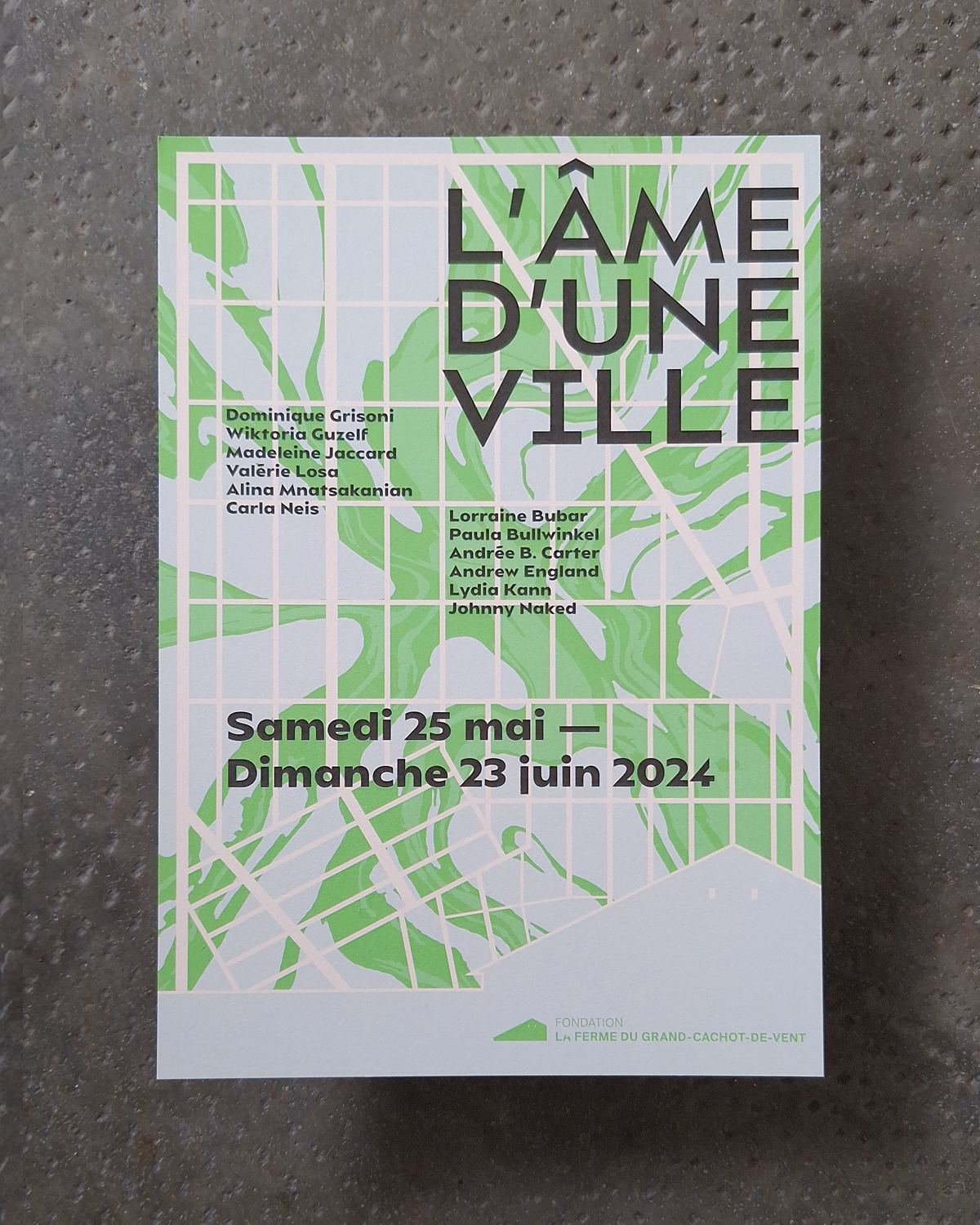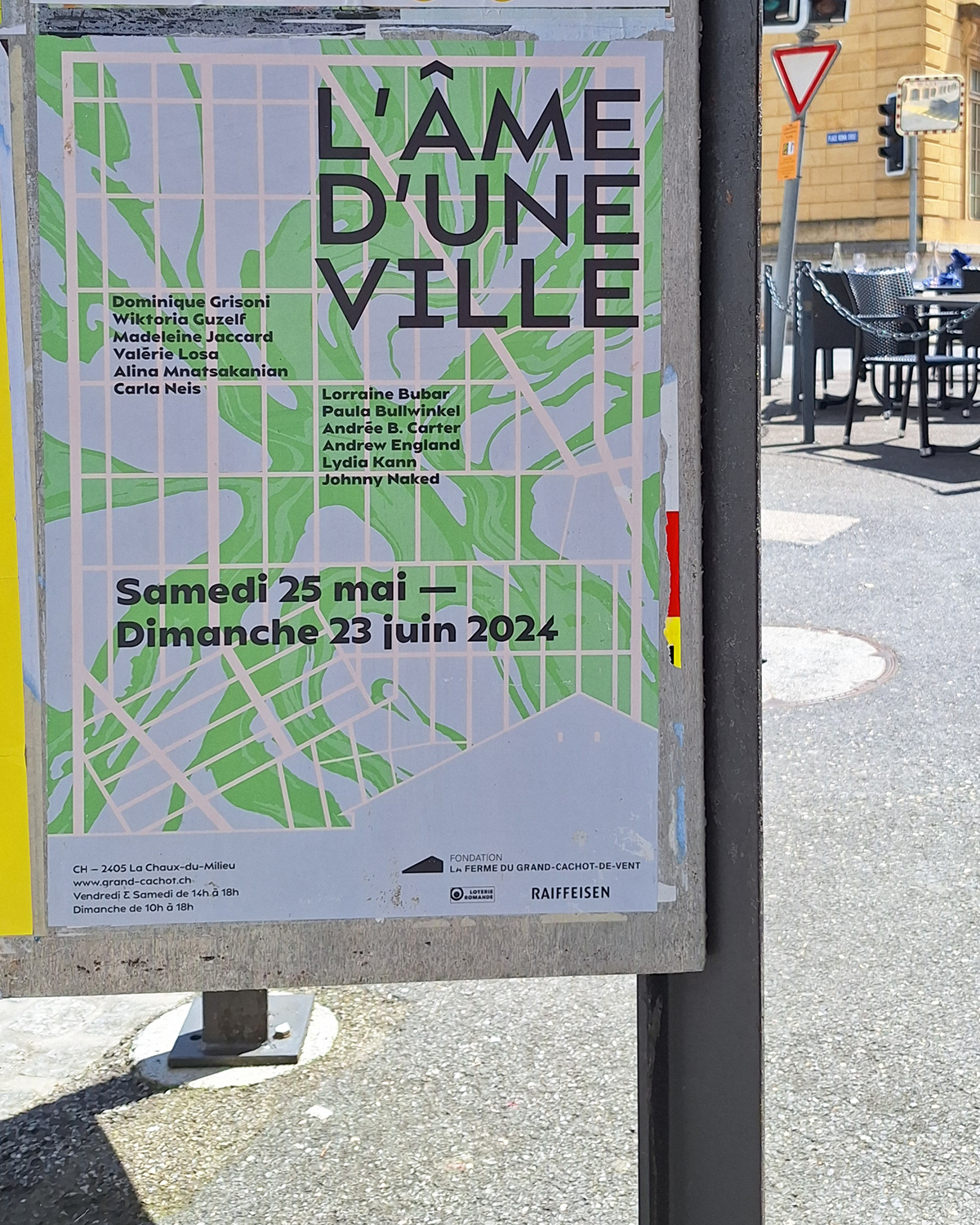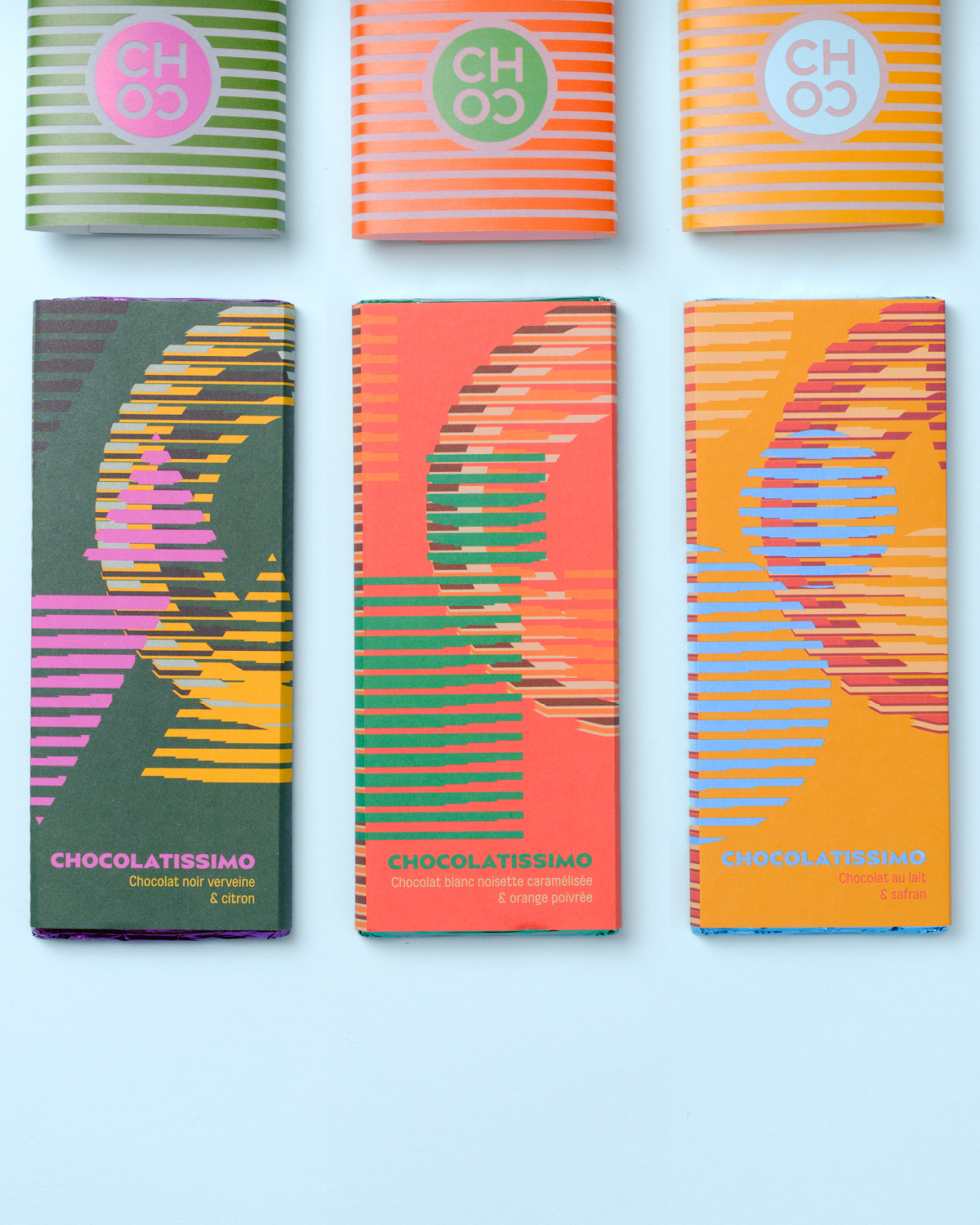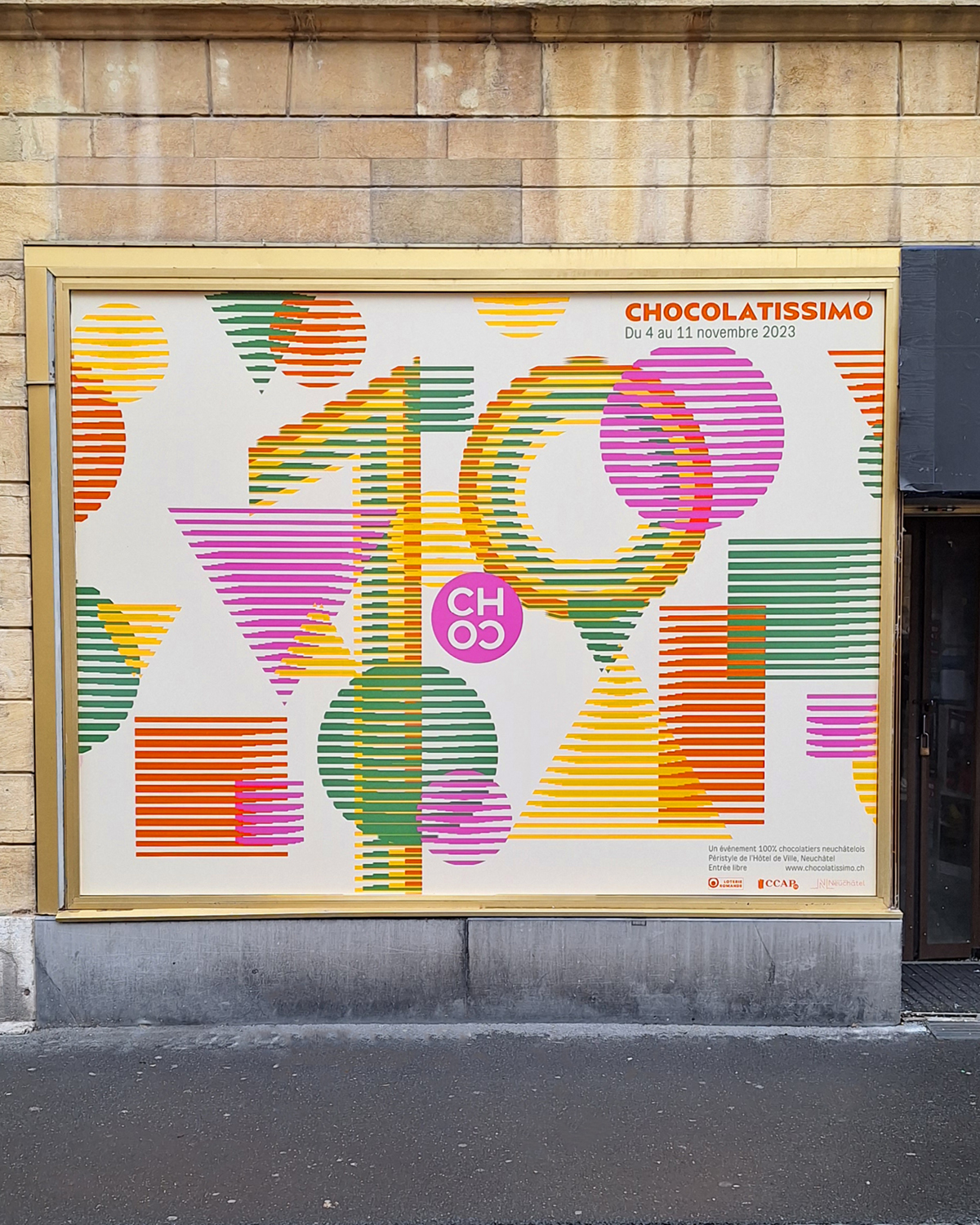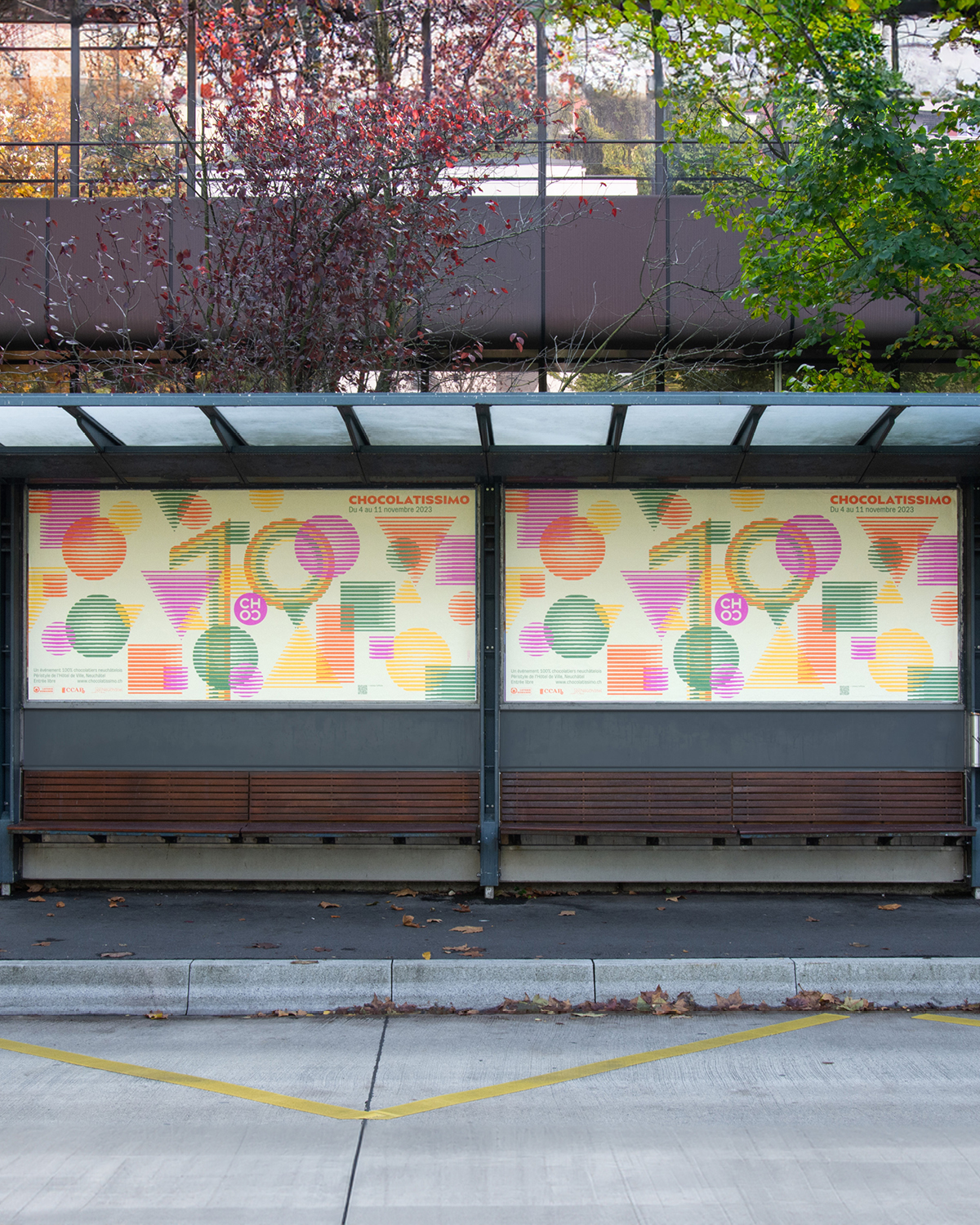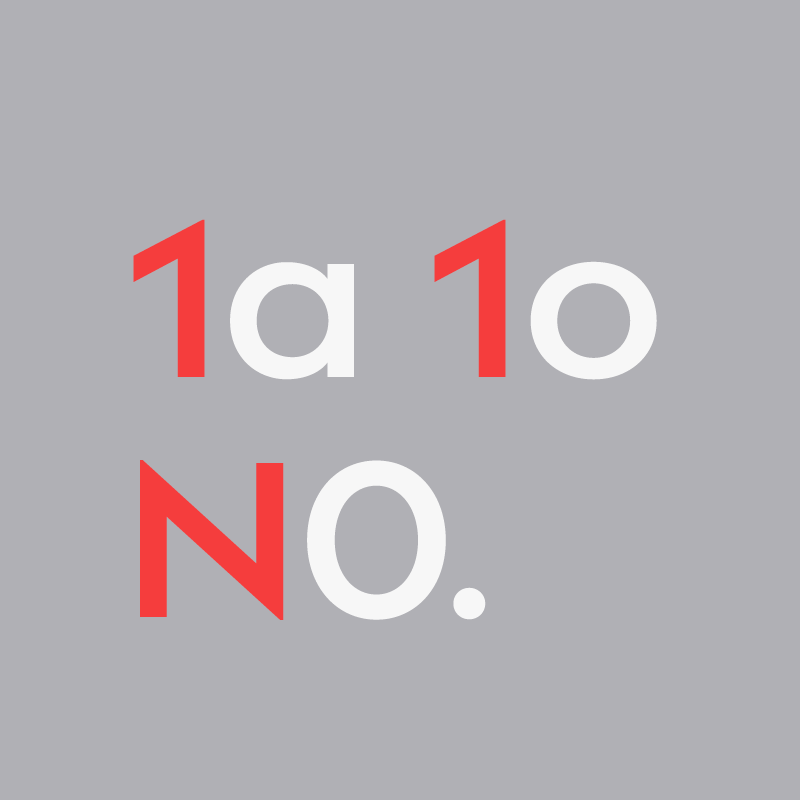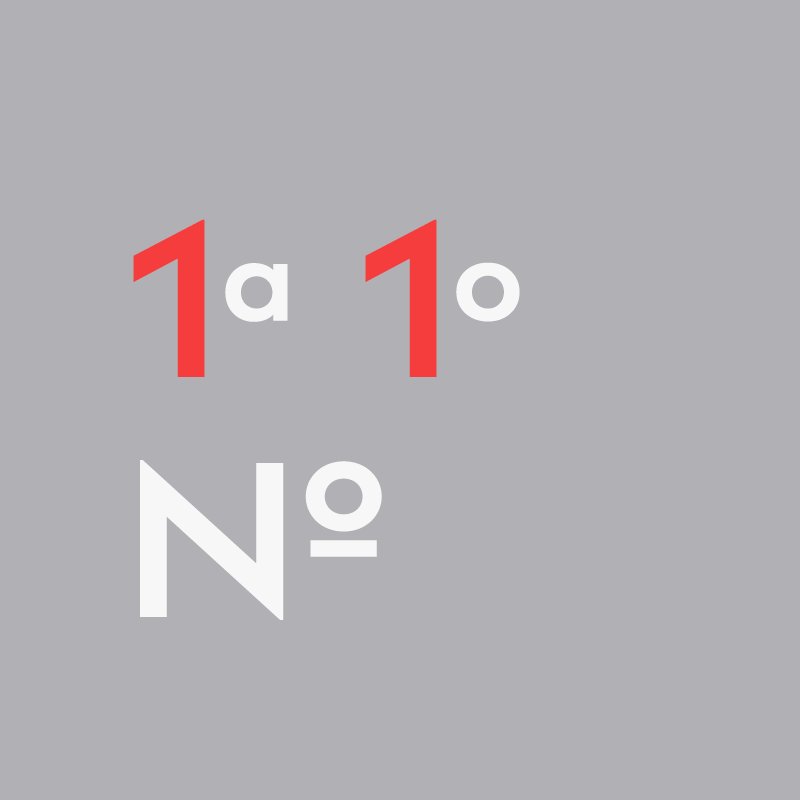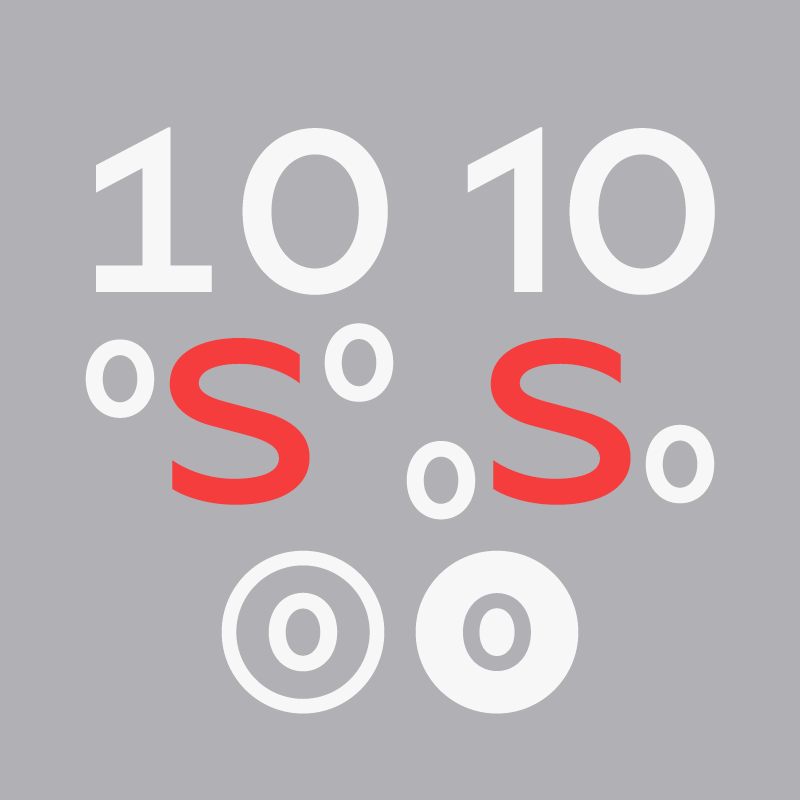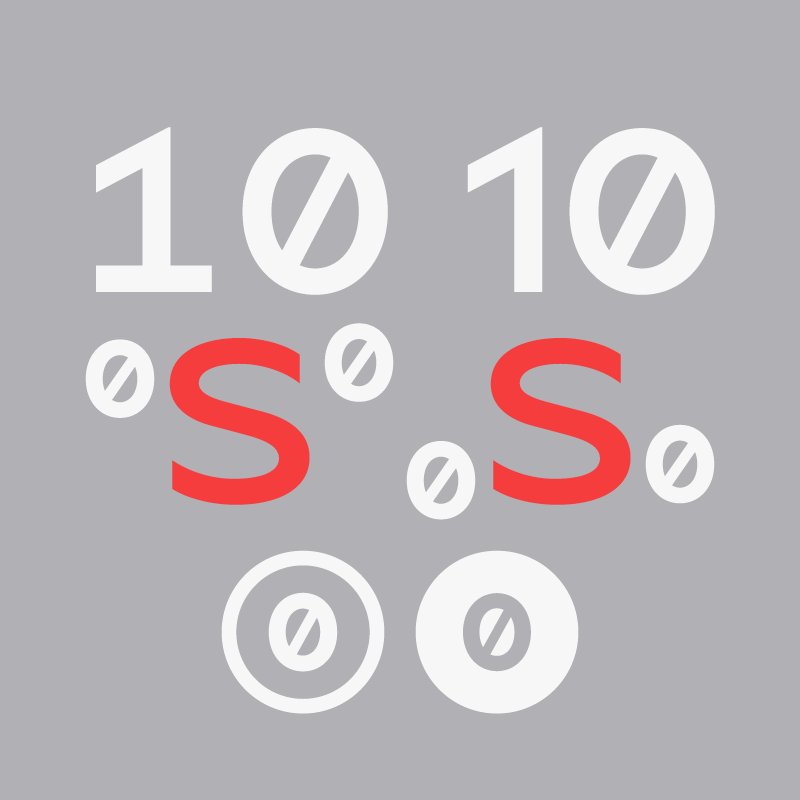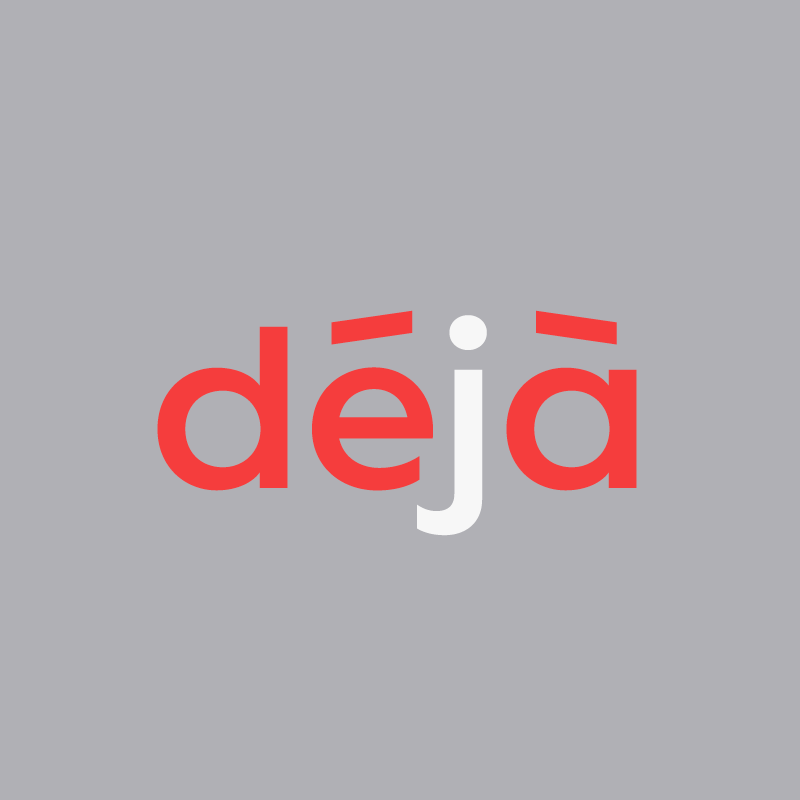
Synthetik
Synthetik is an expressive, minimal geometric sans-serif typeface with generous proportions. Its modern shapes create a dynamic rhythm while remaining grounded in classic geometric models: a contemporary interpretation between Futura and Johnston.
Synthetik Regular + Italic (Alternate j l t)
Synthetik Book (Alternate t)
Synthetik Extrabold (Alternate j l t)
Synthetik is an expressive, minimal geometric sans-serif typeface with generous proportions. Its modern shapes create a dynamic rhythm while remaining grounded in classic geometric models: a contemporary interpretation between Futura and Johnston.
As a geometric humanist with very low contrast and smooth curve connections, BS Synthetik employs vertical-cut terminals that lend both speed and clarity to its voice. This structural logic carries through to other details: the f and t feature asymmetric crossbars that extend only to the right, while the Q balances its circle with a vertically trimmed tail that reaches beyond the bowl. Even the 4 reflects this approach, with a vertical stem that stops cleanly at the horizontal crossbar to create an open triangular counterform. Completing the system, alternates such as a straight-stemmed j and a geometric-cross t provide subtle variations without breaking the overall rhythm.
The family includes ten weights with matching italics and a variable font covering weight and slant.
Typeface features
Alternate j
Alternate l
Alternate t
Case
Slashed Zero
Standard Ligatures